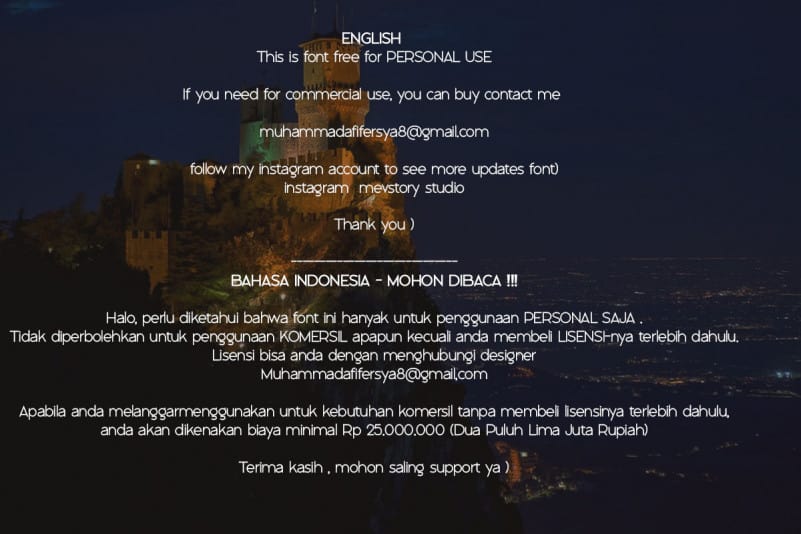
Pergola Sans Serif Font
Pergola Sans Serif Font is a simple, elegant, and fashionable sans serif typeface. This typeface can use as a fashion brand, woman magazine or about woman life style.